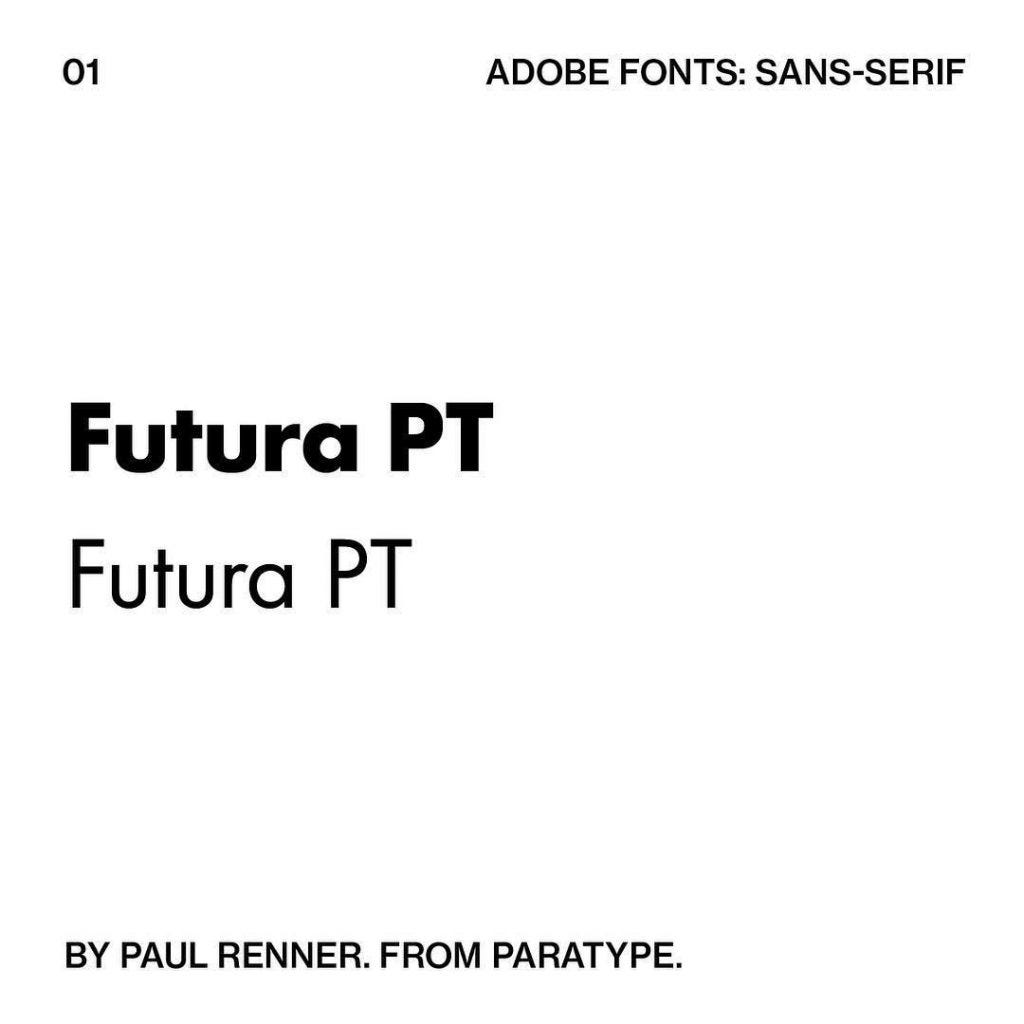
You can snag some of the best typewriter fonts available for free. Acumin — a versatile sans serif typeface;
Free Best Typewriter Font Adobe Simple Ideas, Acumin — a versatile sans serif typeface; This font is definitely easy on the eyes, has a bit of a modern touch yet still keeps that old school aesthetic.
Best free typewriter fonts 2017 Free typewriter font, Typewriter font Ff tisa — the best adobe font for body copy;
American typewriter font is a member of the serif font family. What is type writer font? Find the best typewriter fonts stock photos for your project. You can almost hear the clacking of this one (image credit: Top 8 SansSerif Adobe Fonts (Typekit) Ruslan Galba Medium.
What is type writer font? You can snag some of the best typewriter fonts available for free. Typewriter setting in adobe acrobat pro dc. Upgrade the look of your work with this unique cursive typewriter style. Our 10 Favourite Adobe Fonts Welovedaily.
View on adobe fonts →. You can snag some of the best typewriter fonts available for free. Antique olive is available in four weights (with a regular italic), plus condensed, nord and compact widths. Fancy type writer font is the most advanced free online tool for type writer font with various combinations of type writer font and texts and used by millions people around the world. Typekit is now Adobe Fonts, has limits removed Emre Aral.
I have to constantly change the settings. Find the best typewriter font stock videos and footage for your project. Find the best typewriter font stock photos for your project. To kick things off, we have postmark typewriter, a rugged font that looks like it was spat out from the oldest typewriter you can find. 10 of the best Adobe fonts in 2020 The Blog.
Adobe fonts is the easiest way to bring great type into your workflow, wherever you are. If you want to keep your website simple yet great looking, this is the kind of font you can go for. Including adobe photoshop, illustrator, and indesign. I have to constantly change the settings. Top Adobe Typekit SansSerif Fonts to Use on Your Blog The Blog Market.
What is type writer font? Find the best typewriter font stock photos for your project. Bygonest is a slab serif font display that comes with 2 styles—clean and rustic—and 3 weights, namely: Objectiv — the most legible and simple font for brand design; Pin on Indesign.
A trio of fonts based on the handwriting of some of adobe’s own designers. The quick brown fox jumps over the lazy dog. You can snag some of the best typewriter fonts available for free. Ff tisa — the best adobe font for body copy; The 40 Best Fonts on Adobe Fonts (Typekit) for 2019 · Typewolf Cool.
In previous versions, the typewriter function allowed me to change the font type, color, and size and would remember it for each document opened. At first glance, this find is similar to the other fonts in the bunch, but what sets this contender apart is its detailed and rustic splashes. Fancy type writer font is the most advanced free online tool for type writer font with various combinations of type writer font and texts and used by millions people around the world. Get 10 free adobe stock images.